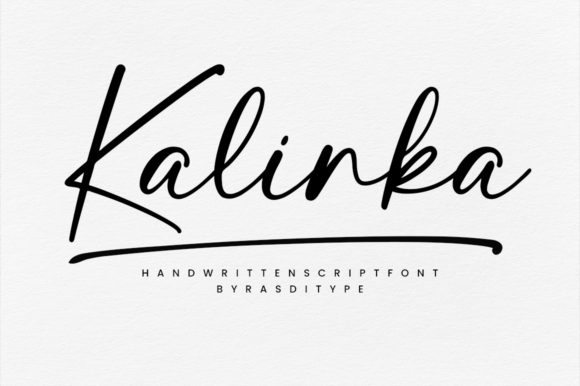
About Kalinka Font
Kalinka is a modern calligraphy typeface with characters that dance along the baseline. It will add a luxury spark to any design project that you wish to create! This font is PUA encoded which means you can access all of the amazing glyphs and ligatures with ease!